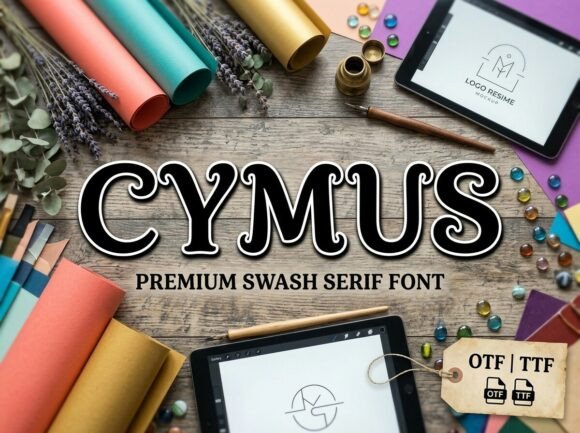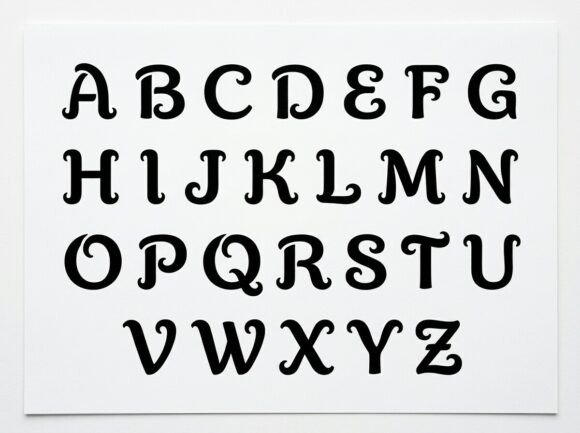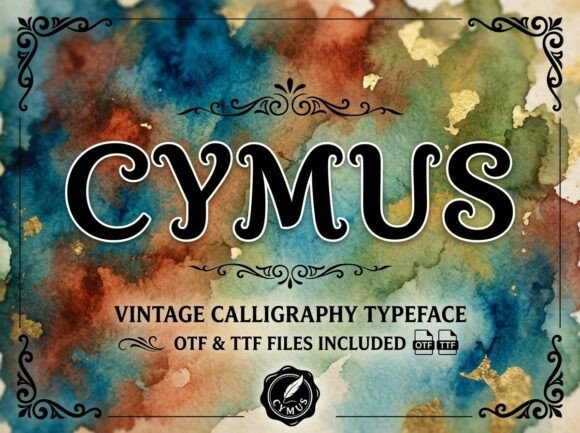
Introducing Cymus Font: The Epitome of Classical Elegance
In the realm of typography, few fonts capture the essence of sophistication and refinement as Cymus does. This vintage calligraphy typeface is a masterclass in elegance, designed to elevate your visual storytelling to unprecedented heights. With its high-contrast serif letterforms, dramatic flourishes, and refined terminals, Cymus embodies the timeless prestige of traditional ink-and-pen craftsmanship.
The Characteristics of Cymus Font
Cymus is distinguished by its striking high-contrast serif letterforms, which exude a sense of luxury and refinement. The font’s dramatic, scrolling flourishes add a touch of drama and flair, while its refined, curved terminals bring a sense of smoothness and fluidity to the text. The balanced proportions of Cymus ensure that the font remains legible and harmonious, even in smaller sizes.
One of the standout features of Cymus is its ornamental apertures, which lend an air of heritage and sophistication to the font. These intricate details evoke the sense of a bygone era, when craftsmanship and attention to detail were paramount. As a result, Cymus is an exceptional choice for projects that demand a sense of history and tradition.
Ideal Applications for Cymus Font
Cymus is a versatile font that lends itself to a wide range of applications, from luxury branding to high-end stationery. Some of the ideal uses for Cymus include:
- Luxury spirit labels: Cymus is the perfect font for labeling high-end spirits, such as fine wines, craft beers, or premium spirits. Its elegant, refined aesthetic adds a touch of sophistication to any label.
- Bespoke wedding stationery: Make your wedding stationery truly unforgettable with Cymus. This font is ideal for wedding invitations, save-the-dates, and thank-you cards.
- Historical book covers: Cymus is an excellent choice for book covers that require a sense of history and tradition. Its classic, elegant aesthetic is sure to evoke a sense of nostalgia and timelessness.
- High-end boutique branding: For luxury boutiques and high-end retailers, Cymus offers a unique opportunity to establish a sophisticated brand identity. Use this font for signage, packaging, and marketing materials to create a cohesive, high-end look.
The Benefits of Using Cymus Font
Cymus offers a range of benefits for designers and crafters, including:
- Polished artisanal beauty: Cymus brings a sense of refined elegance to any project, making it perfect for designers who want to create sophisticated, high-end visuals.
- Historical charm: With its classic, traditional aesthetic, Cymus adds a touch of history and heritage to any project.
- Flexibility: Cymus is a versatile font that can be used in a wide range of applications, from luxury branding to high-end stationery.
Tips for Using Cymus Font Effectively
To get the most out of Cymus, here are a few tips to keep in mind:
- Use it sparingly: Cymus is a bold, attention-grabbing font. Use it sparingly to create visual interest and emphasis.
- Pair it with neutral fonts: Cymus pairs beautifully with neutral fonts, such as sans-serifs or simple serifs. This creates a harmonious contrast that adds visual interest to your design.
- Experiment with sizes: Cymus is a font that can be used in a range of sizes, from small captions to large headlines. Experiment with different sizes to find the perfect fit for your project.
In conclusion, Cymus is a truly exceptional font that embodies the essence of classical elegance. With its high-contrast serif letterforms, dramatic flourishes, and refined terminals, this vintage calligraphy typeface is perfect for designers and crafters who want to create sophisticated, high-end visuals. Whether you’re working on a luxury branding project, bespoke wedding stationery, or historical book covers, Cymus is sure to deliver a sense of polished artisanal beauty and historical charm to your visual identity.